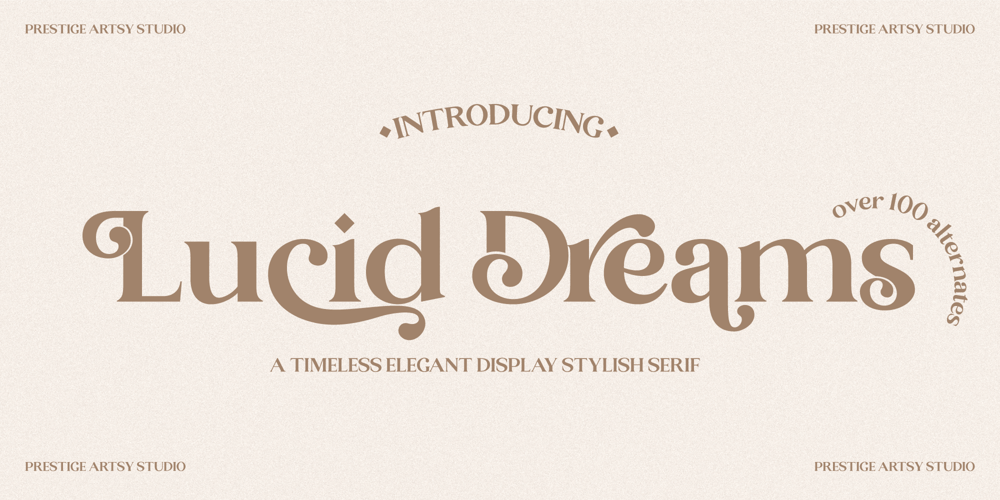
Lucid Dreams
Lucid Dreams font
Lucid Dreams Font Family was designed by Zak M and published by Prestige Artsy Studio. Lucid Dreams contains 1 styles and family package options. Lucid Dreams is a timeless powerful and bold display serif. Thanks to OpenType features Lucid Dreams comes in with over 100 stylistic alternates providing you with several options to embellish your next branding project. Lucid Dreams will work perfectly for wall art work, quotes, branding, logo design, t-shirt design, posters, magazine headlines, stationary and much more.I can’t wait to see what you can do with Lucid Dreams!